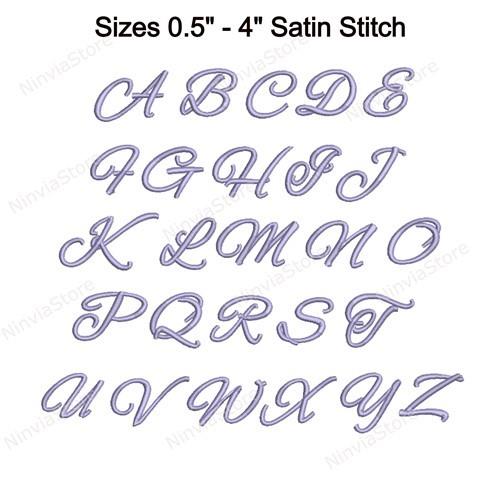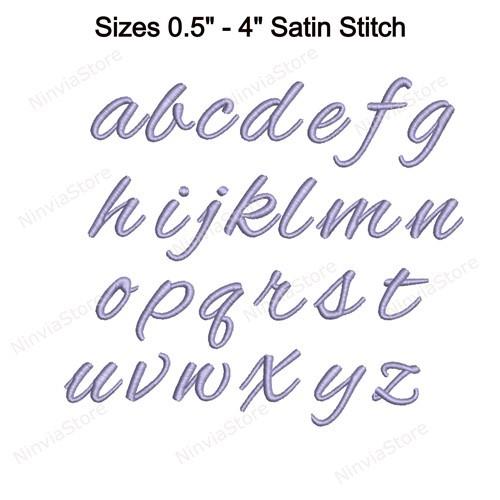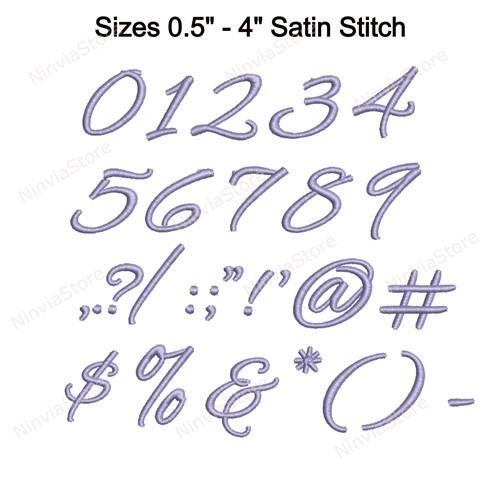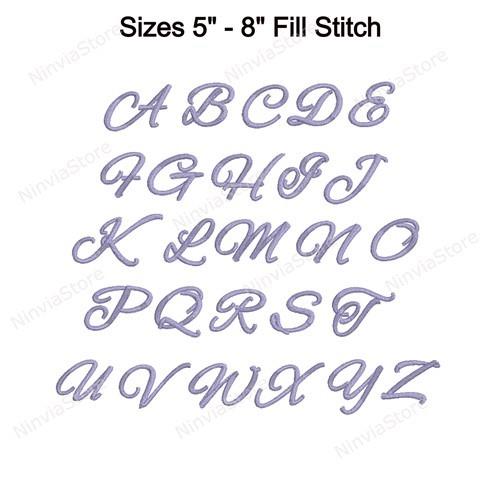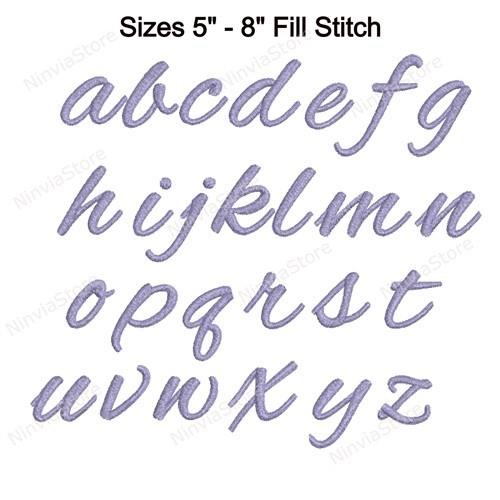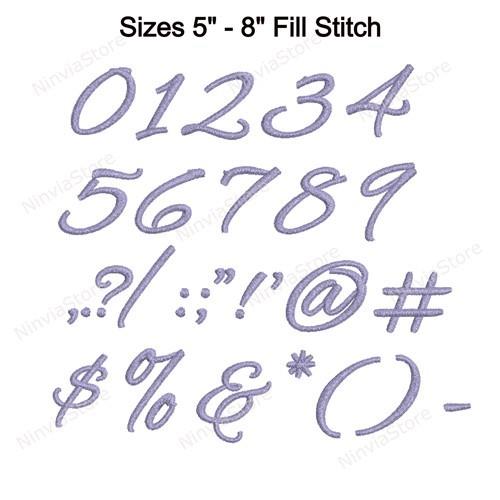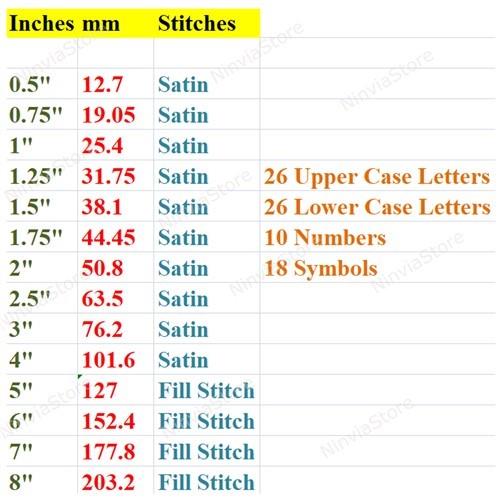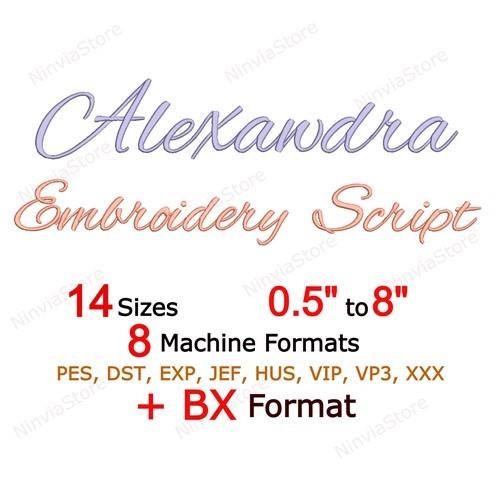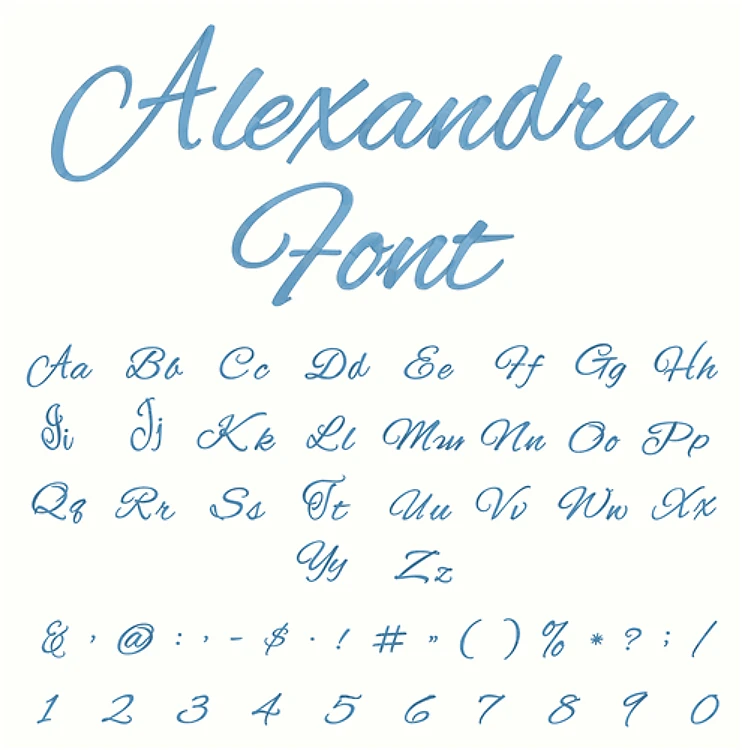
Alexandra Font Embroidery Font - Flowing Script Style Lettering - Home Format - PES, DST & 6 formats by Maya Kreations and other embroidery fonts available at EmbroideryDesigns.com.
Maya Kreations is happy to present Alexandra Font Embroidery Font - Flowing Script Style Lettering - Home Format - PES, DST & 6 formats machine embroidery font which has Flowing script style machine embroidery font suited for personalizing items like clothing and home decor. Showcases unique letter forms in blue. Available in formats such as PES, DST and 6 other formats. included. If you would like to view more embroidery fonts and alphabets please search our embroidery fonts page.